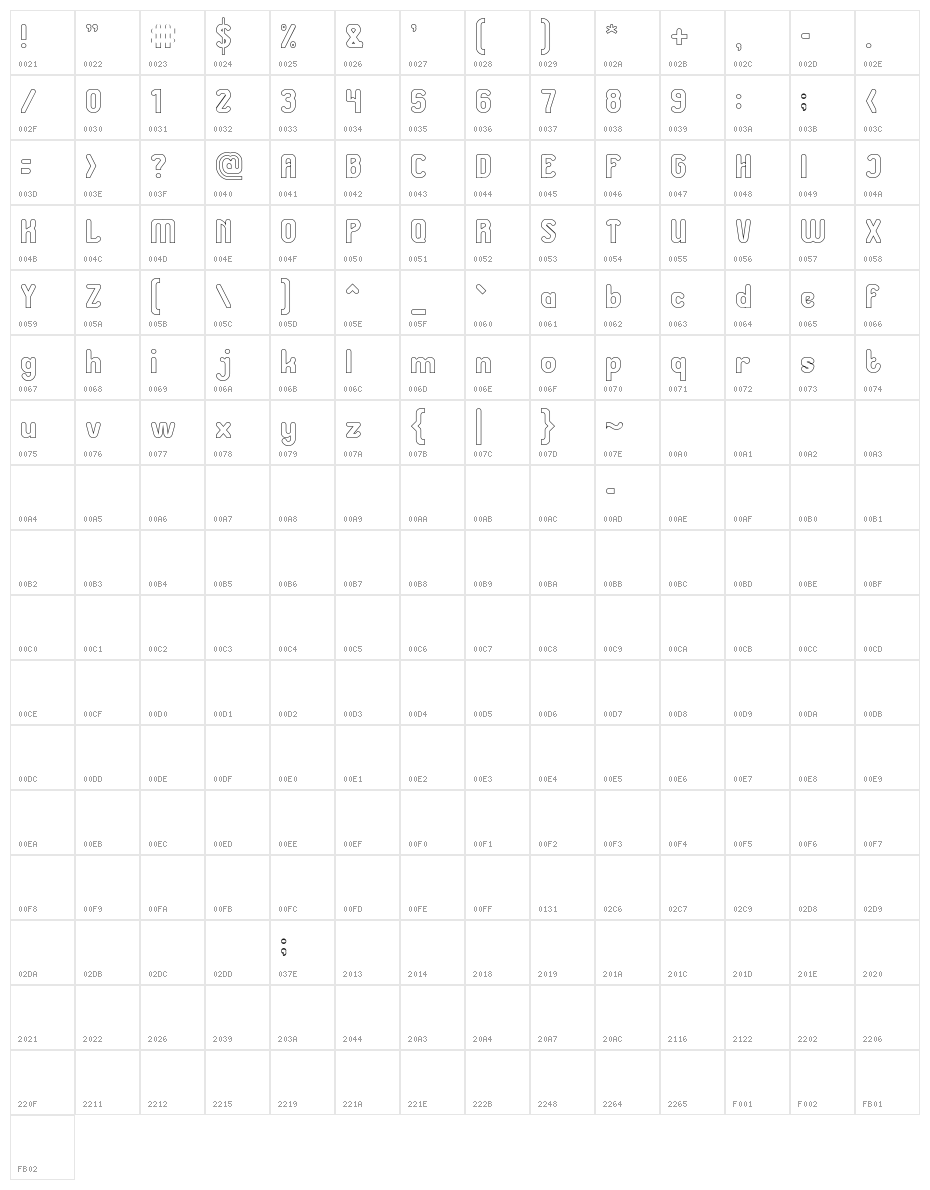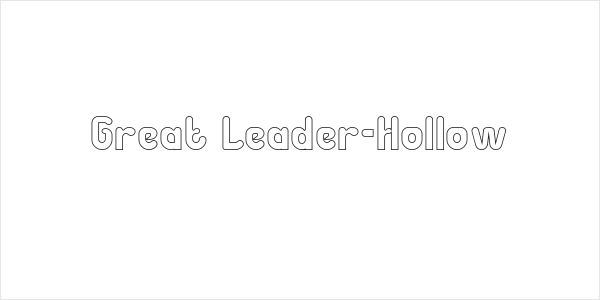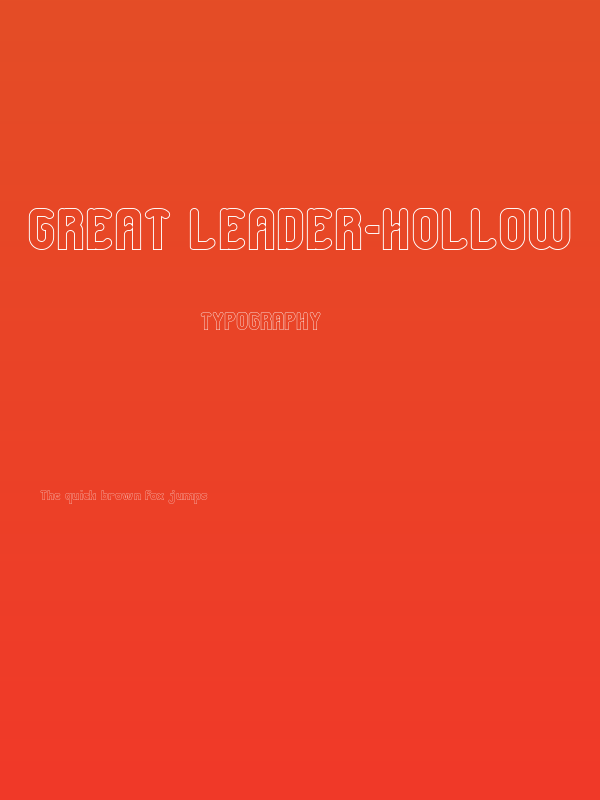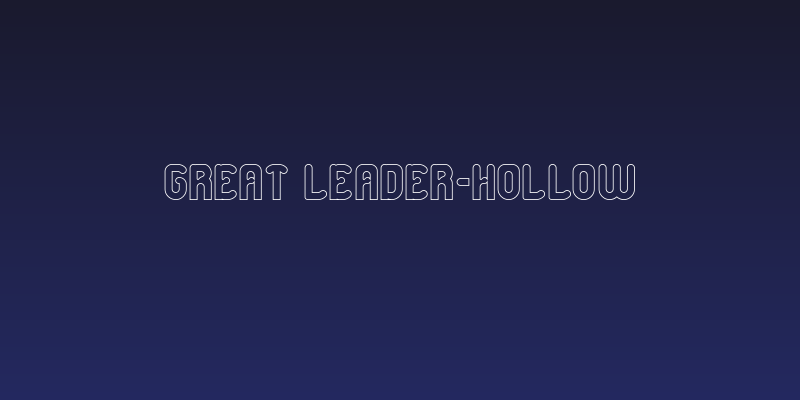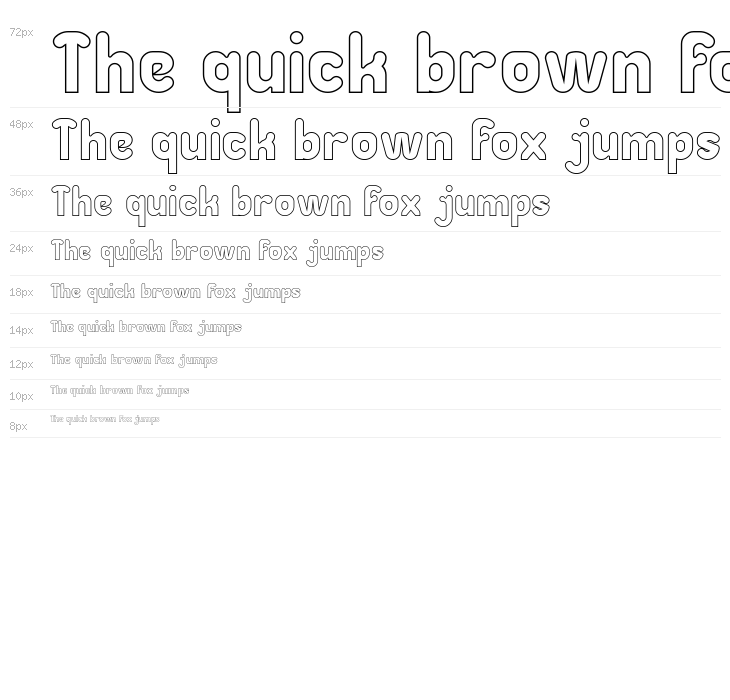
Great Leader-Hollow Font
Great Leader-Hollow Description
This font features a hollow, outlined design that gives it a modern and playful appearance. The characters are bold with rounded edges, creating a friendly and approachable look. The uppercase and lowercase letters maintain a consistent style, with uniform stroke widths that contribute to its cohesive aesthetic. The numerals and special characters are designed to match the overall theme, ensuring versatility across different applications. Its unique outline style makes it stand out, suitable for creative and eye-catching designs.
| Proposed Projects | Ideal for posters, logos, headlines, and any design project that requires a bold and distinctive look. |